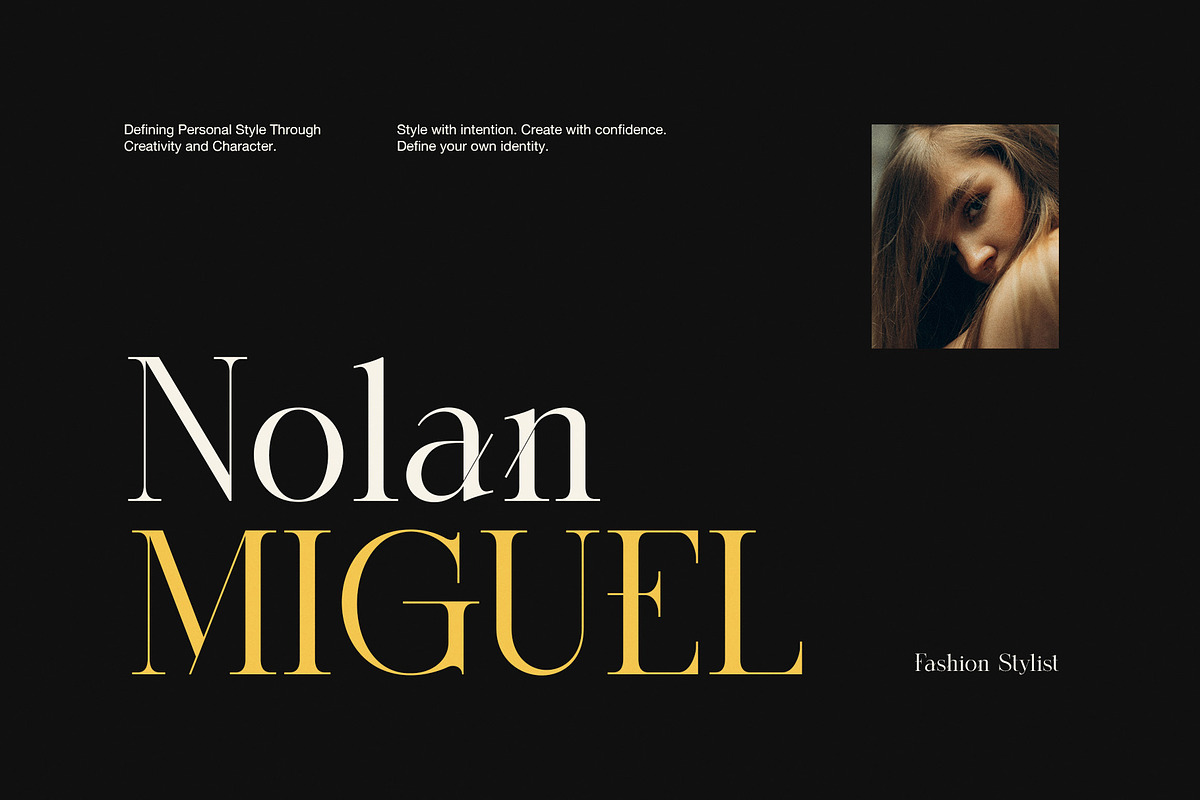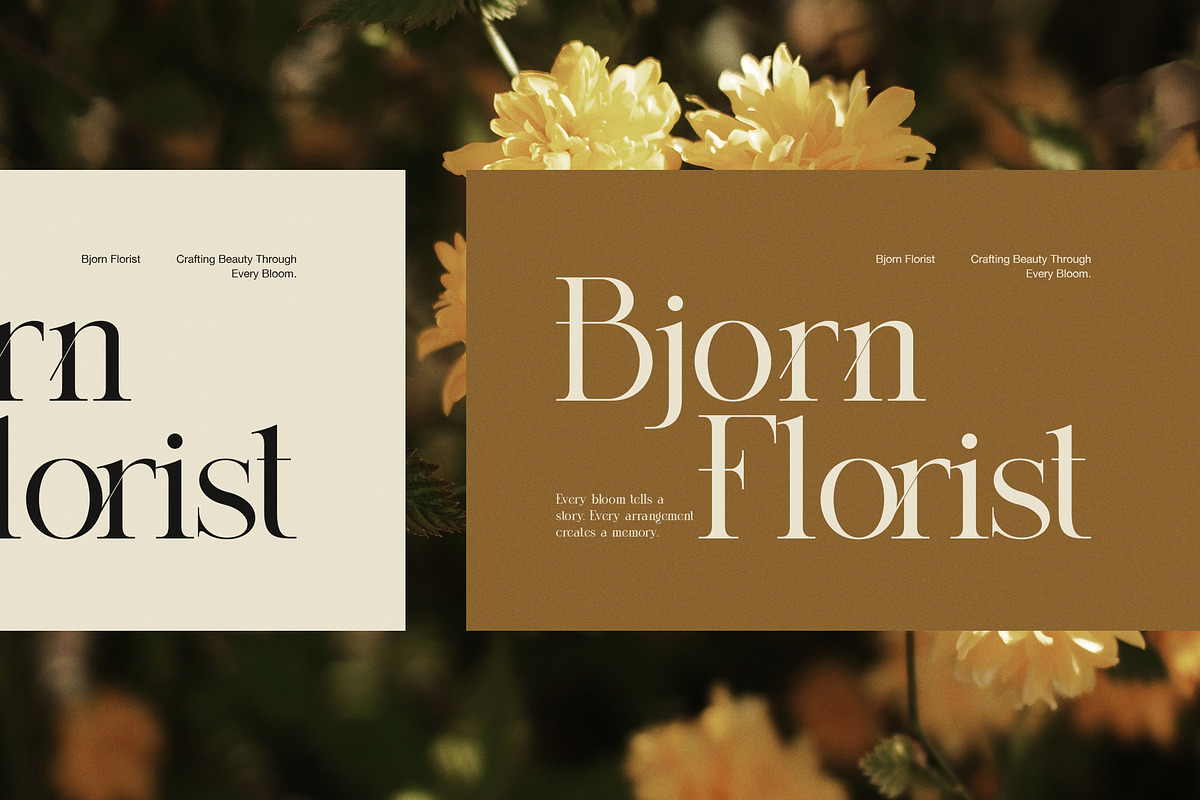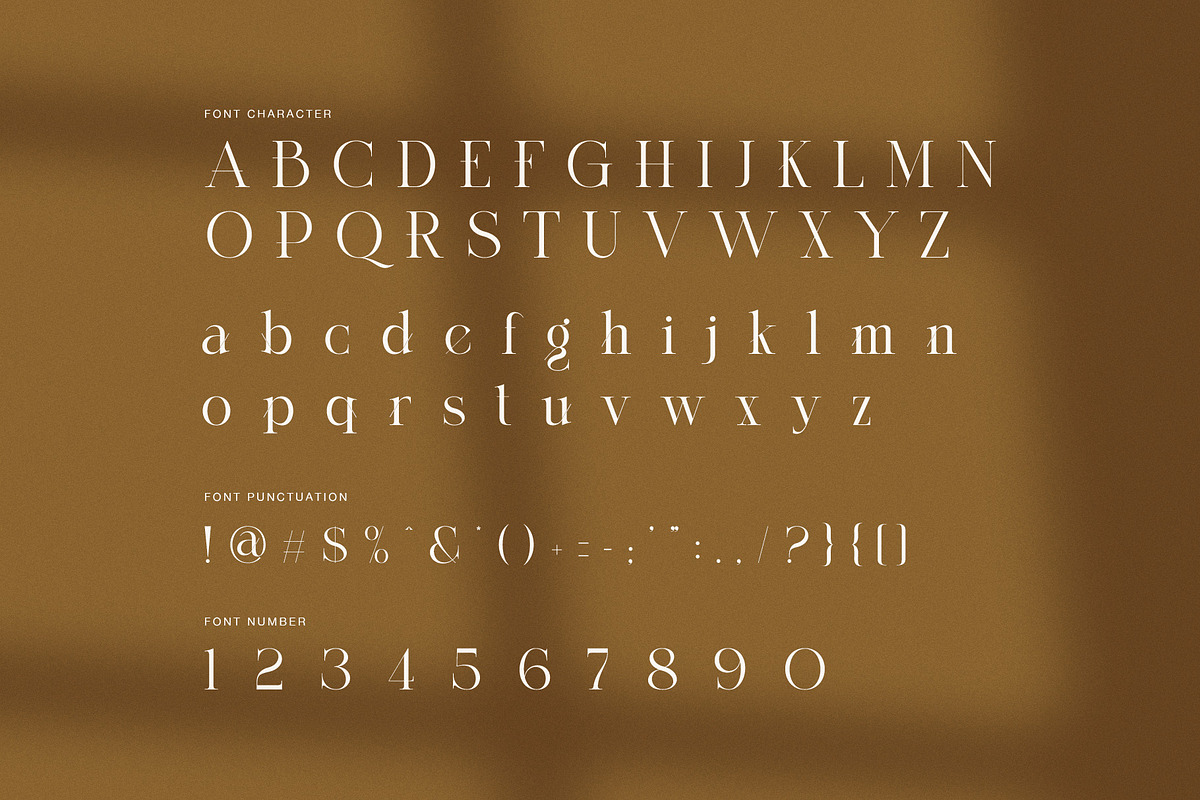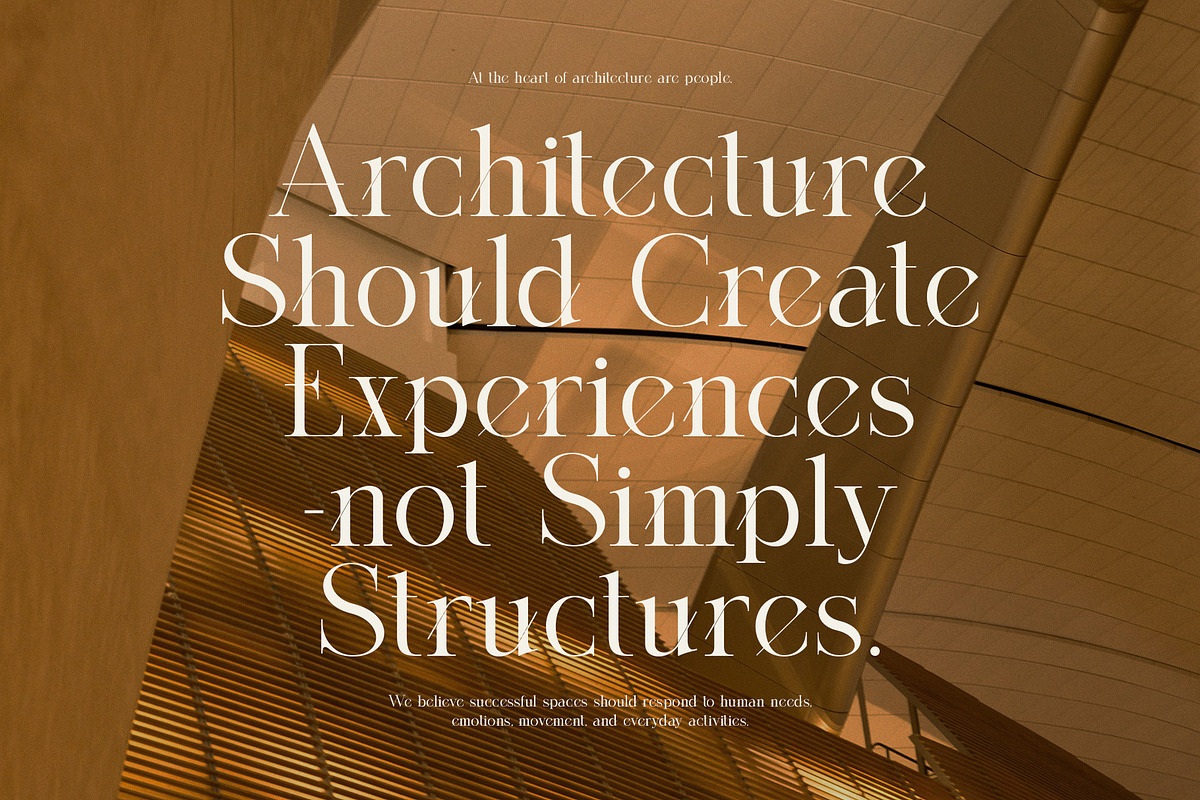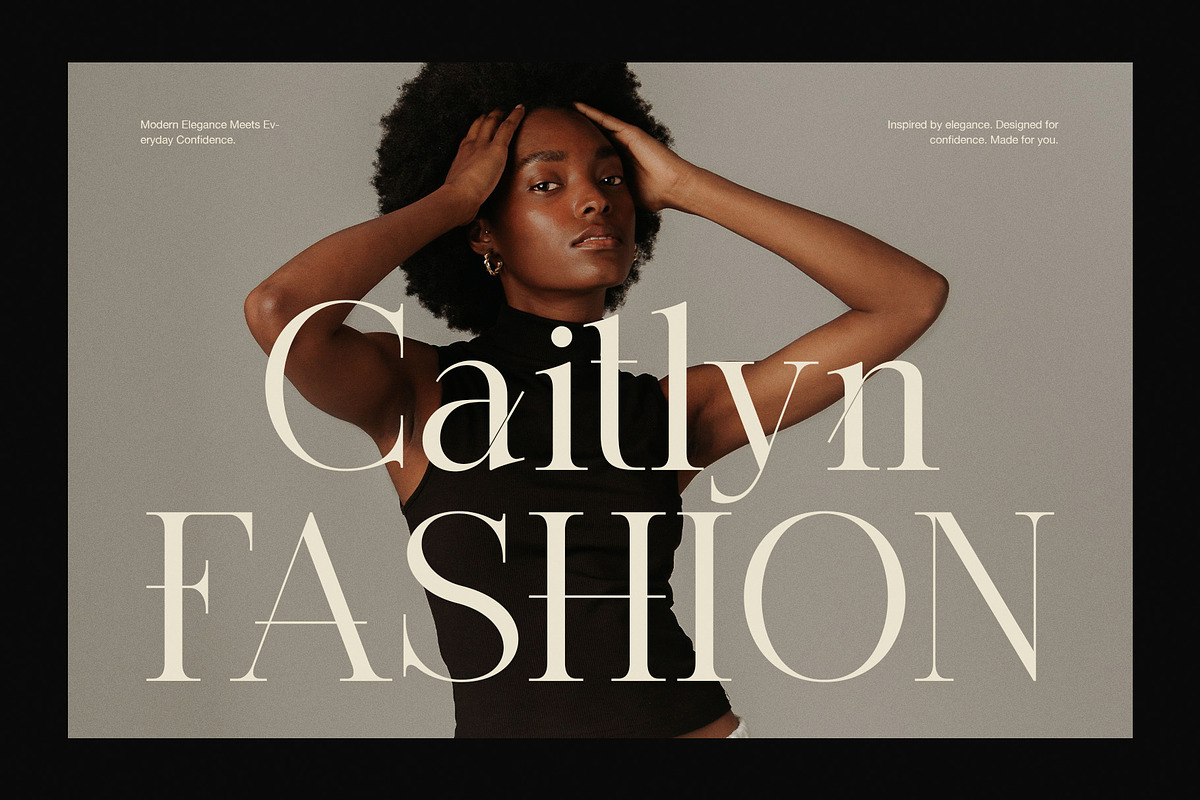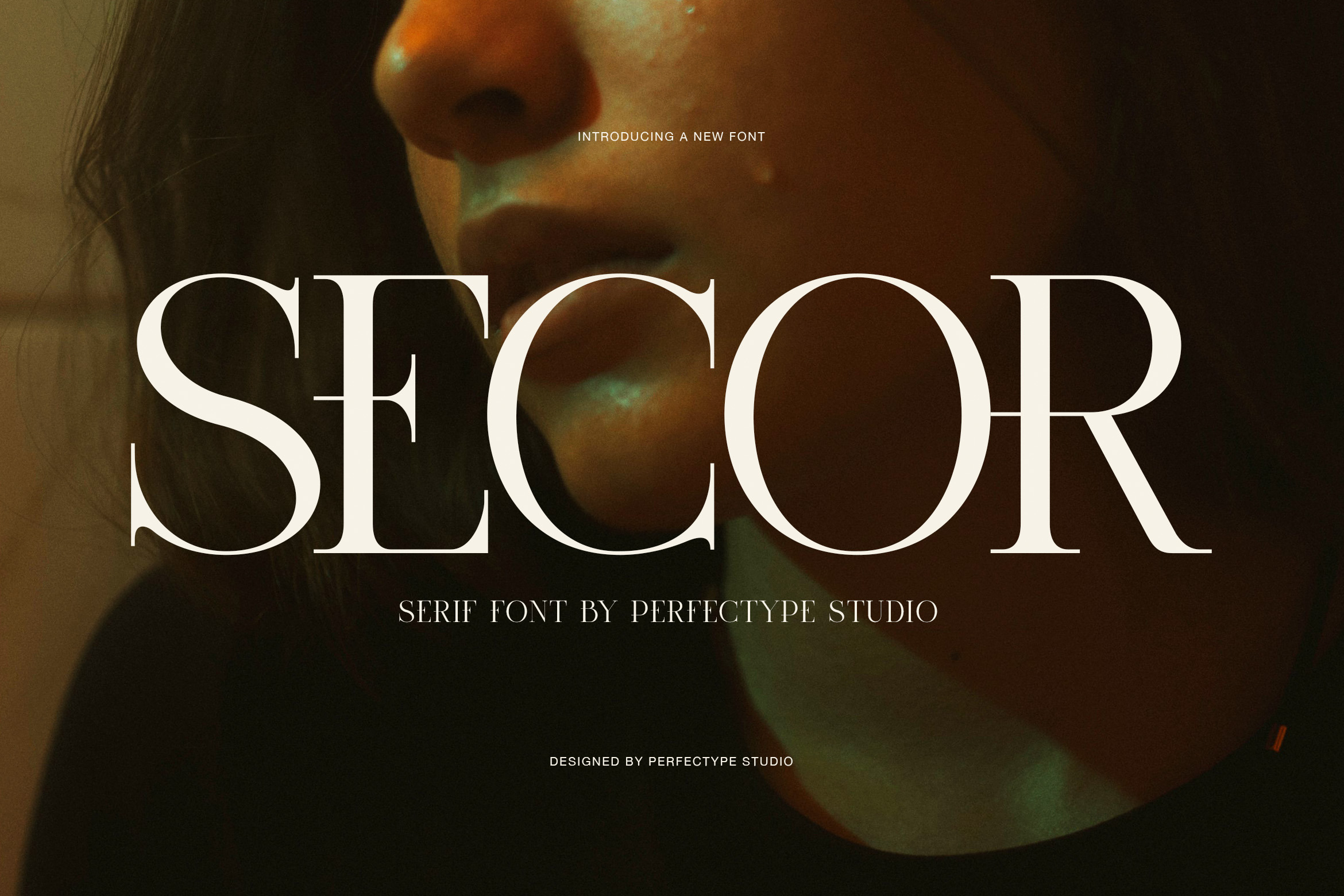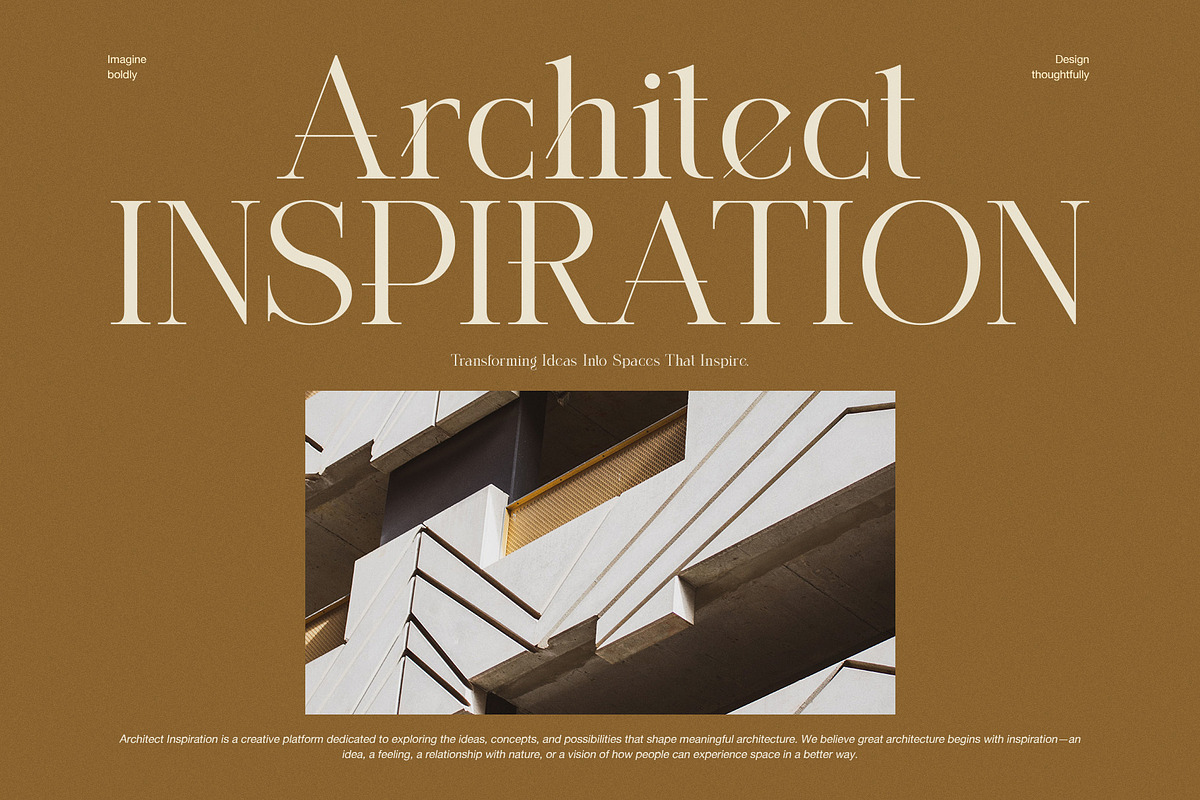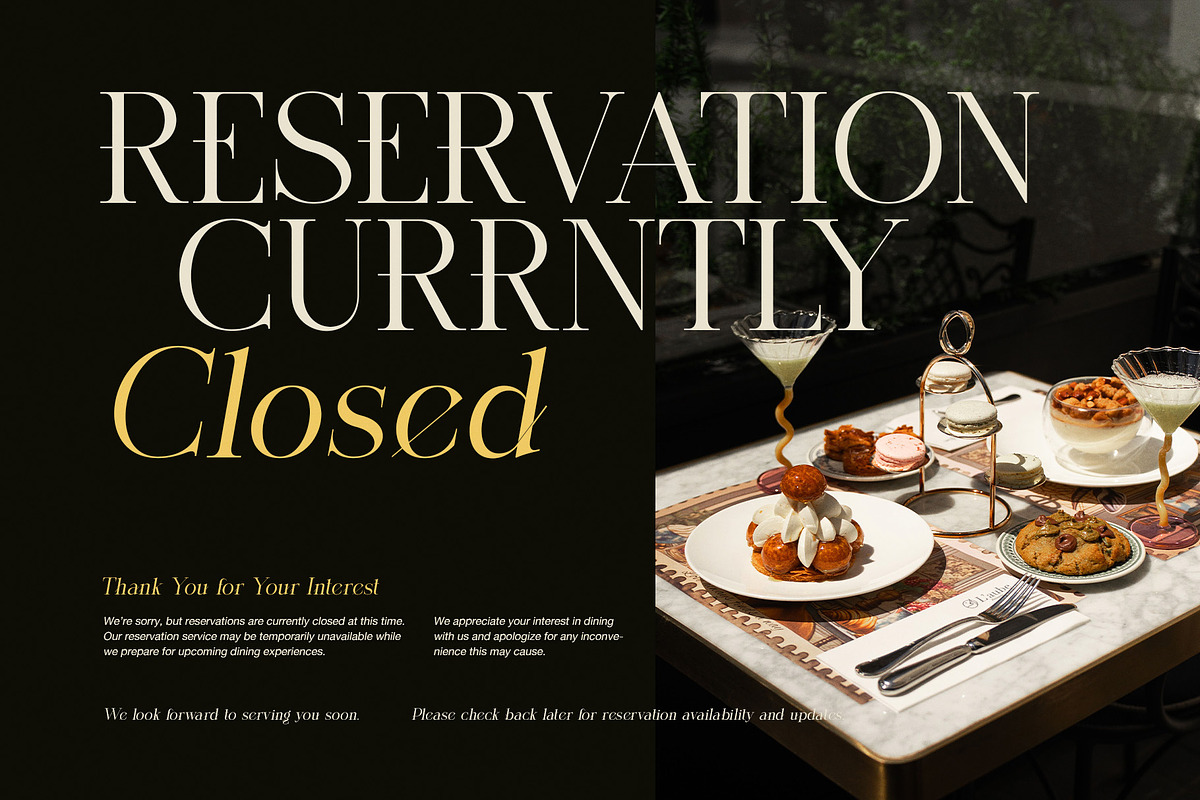
Secor Elegant Serif Font
Secor is an elegant high contrast serif font created for fashion, beauty, luxury branding, and modern editorial design. Its refined letterforms combine strong vertical strokes with delicate hairlines, creating a graceful contrast that immediately adds character to headlines and display text.
The tall proportions also give Secor a sophisticated appearance. Meanwhile, its sharp serifs and carefully shaped curves create a polished visual rhythm. As a result, the typeface feels refined without losing its distinctive personality.
Fashion and Editorial Character
Secor has a strong fashion-inspired character that works especially well in premium visual projects. Its uppercase letters create dramatic headlines, while the lowercase forms bring a softer and more graceful tone.
In addition, several letterforms feature distinctive details that help the typeface stand apart. Therefore, Secor can become an important part of a visual identity rather than simply supporting the content.
The font is particularly suitable for:
Fashion magazines and editorial layouts
Luxury logos and brand identities
Beauty and cosmetic packaging
Wedding invitations and stationery
Boutique and lifestyle branding
Posters and advertising campaigns
Architecture and interior design
Photography portfolios
Versatile Display Typography
Because of its strong contrast, Secor performs beautifully at larger sizes. It can transform a simple headline into a sophisticated visual statement. Furthermore, its elegant shapes work naturally with photography, spacious layouts, neutral colors, and minimalist compositions.
The uppercase characters are ideal for fashion campaigns, magazine covers, and luxury branding. On the other hand, the lowercase characters provide a more relaxed appearance for supporting text and creative layouts.
The numerals and punctuation also follow the refined character of the typeface. Consequently, your designs can maintain a consistent typographic style across different elements.
Designed for Modern Brands
Secor is a versatile choice for designers who want a modern serif font with an elegant and premium appearance. It works especially well for brands connected to fashion, beauty, lifestyle, architecture, photography, and luxury products.
Moreover, Secor pairs beautifully with clean sans serif fonts. This makes it easy to create visual hierarchy between headlines, subheadings, and supporting information.